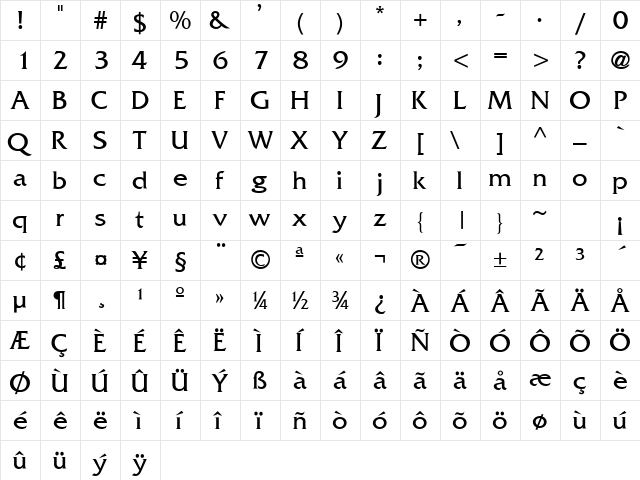
Frit-Qat Normal
Design Context for Frit-Qat Typeface
Frit-Qat is a composed and adaptable typeface that performs quietly and consistently across a wide range of design contexts.